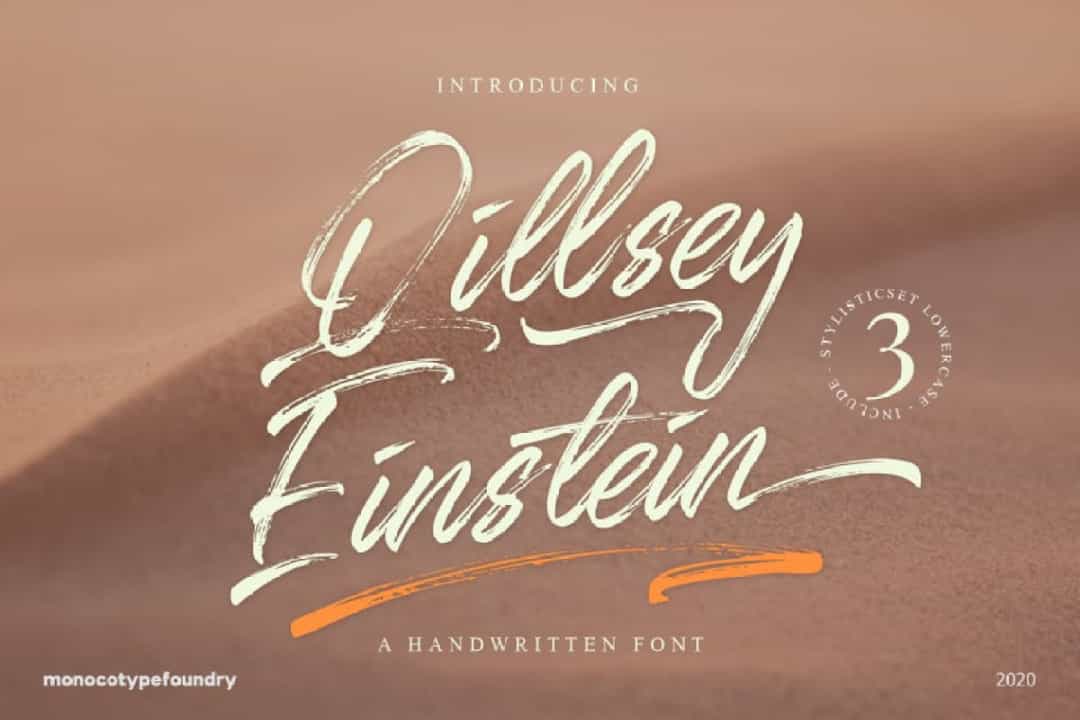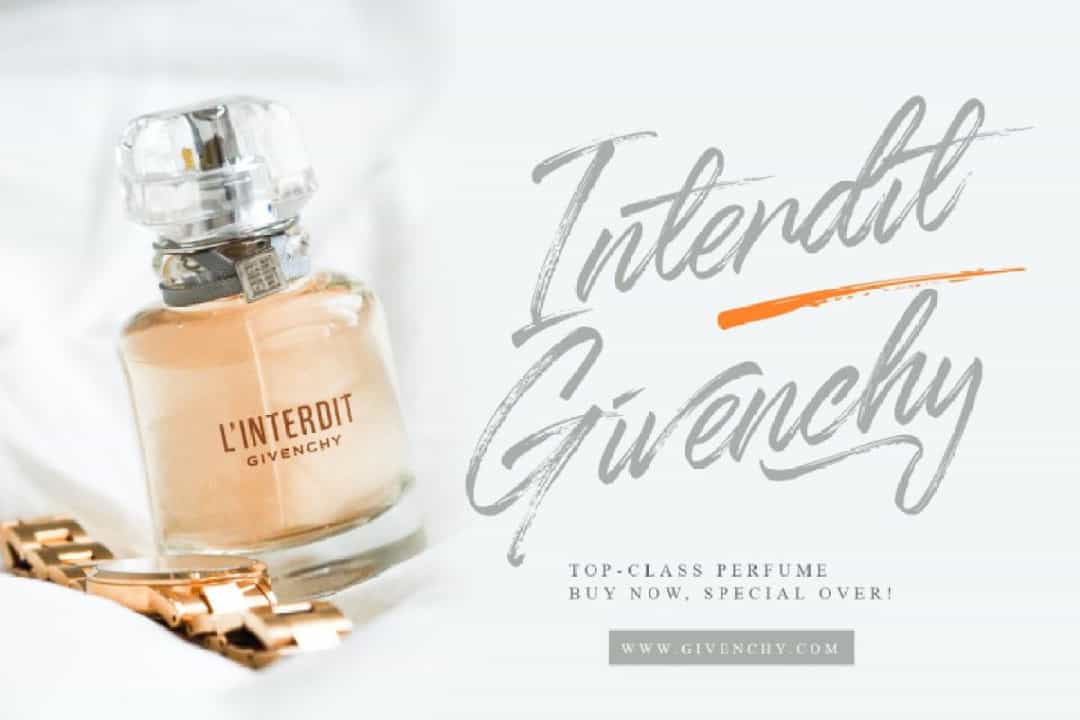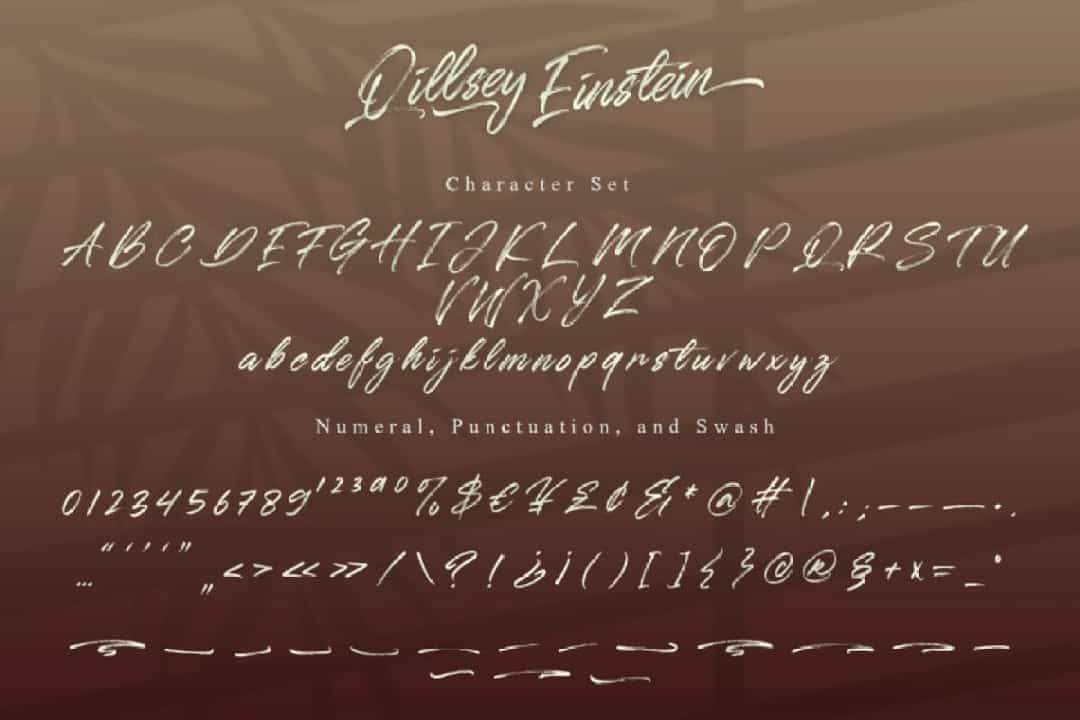
Qillsey Einstein Font is designed using natural hand-made brushes. It’s distinctive Open type and the ligature, it will add an aesthetic appeal to your product. The fonts included in this file include Qillsey Einstein Fonts as well as Swash which you can integrate into a striking design.